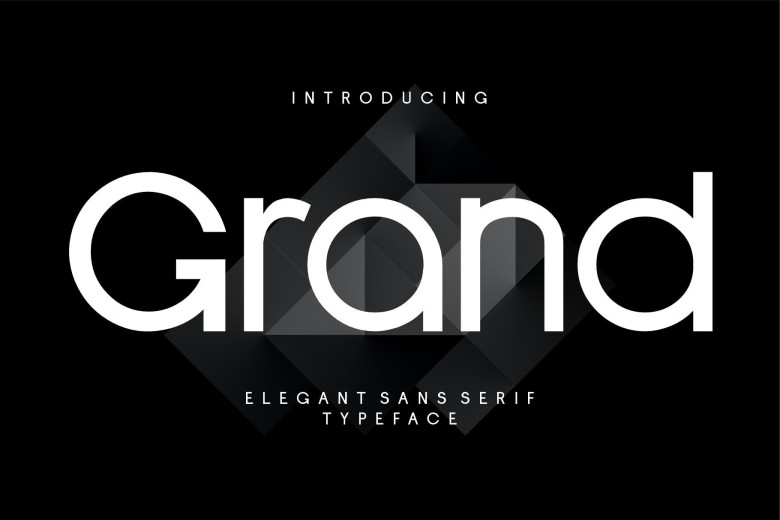
Grand Font
Grand is a sans serif font. The minim logo-inspired typeface can be used for designing templates, brochures videos ads branding logos invitations layout design elegant craft beauty design and more.
Grand Sans Serif Font